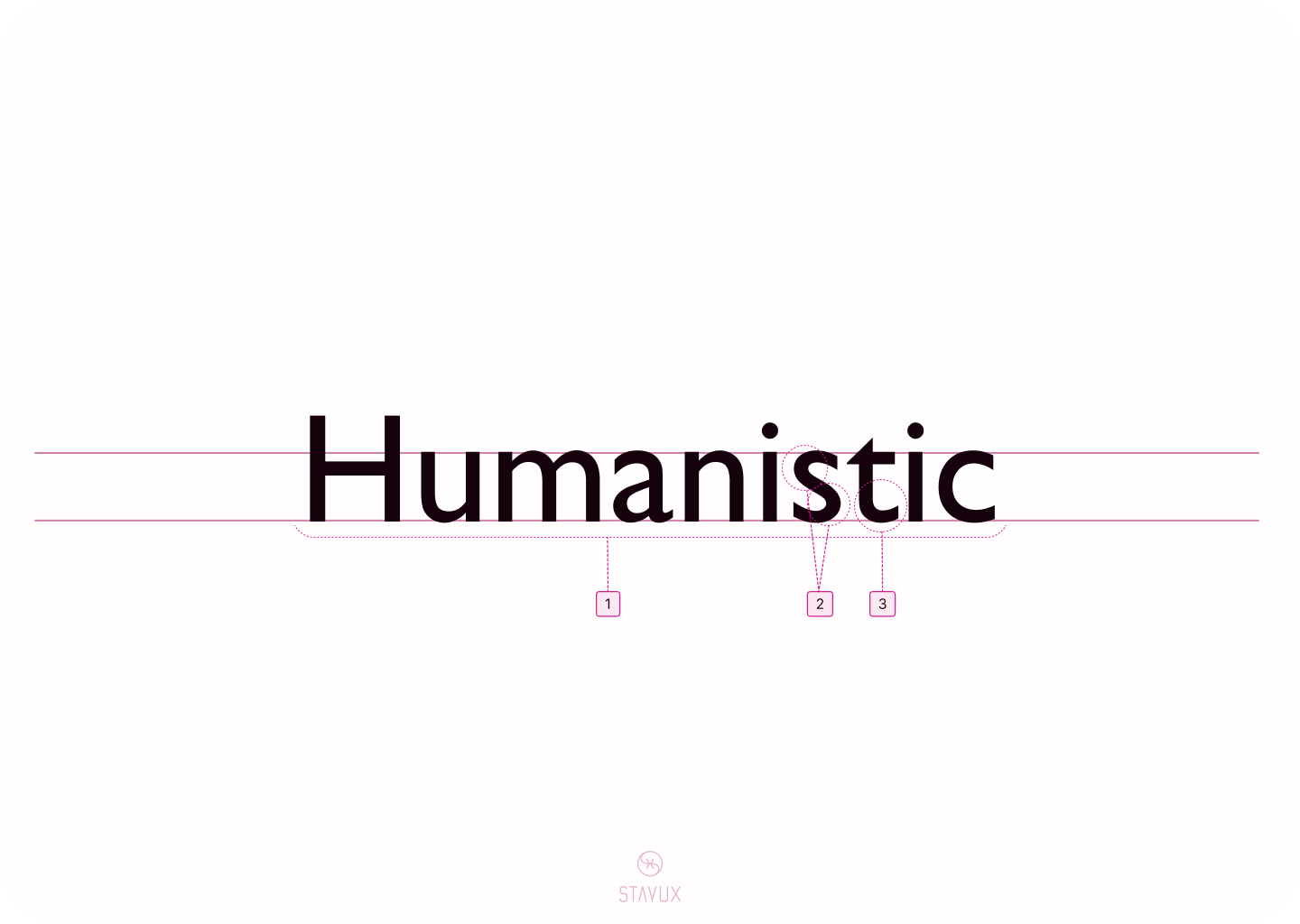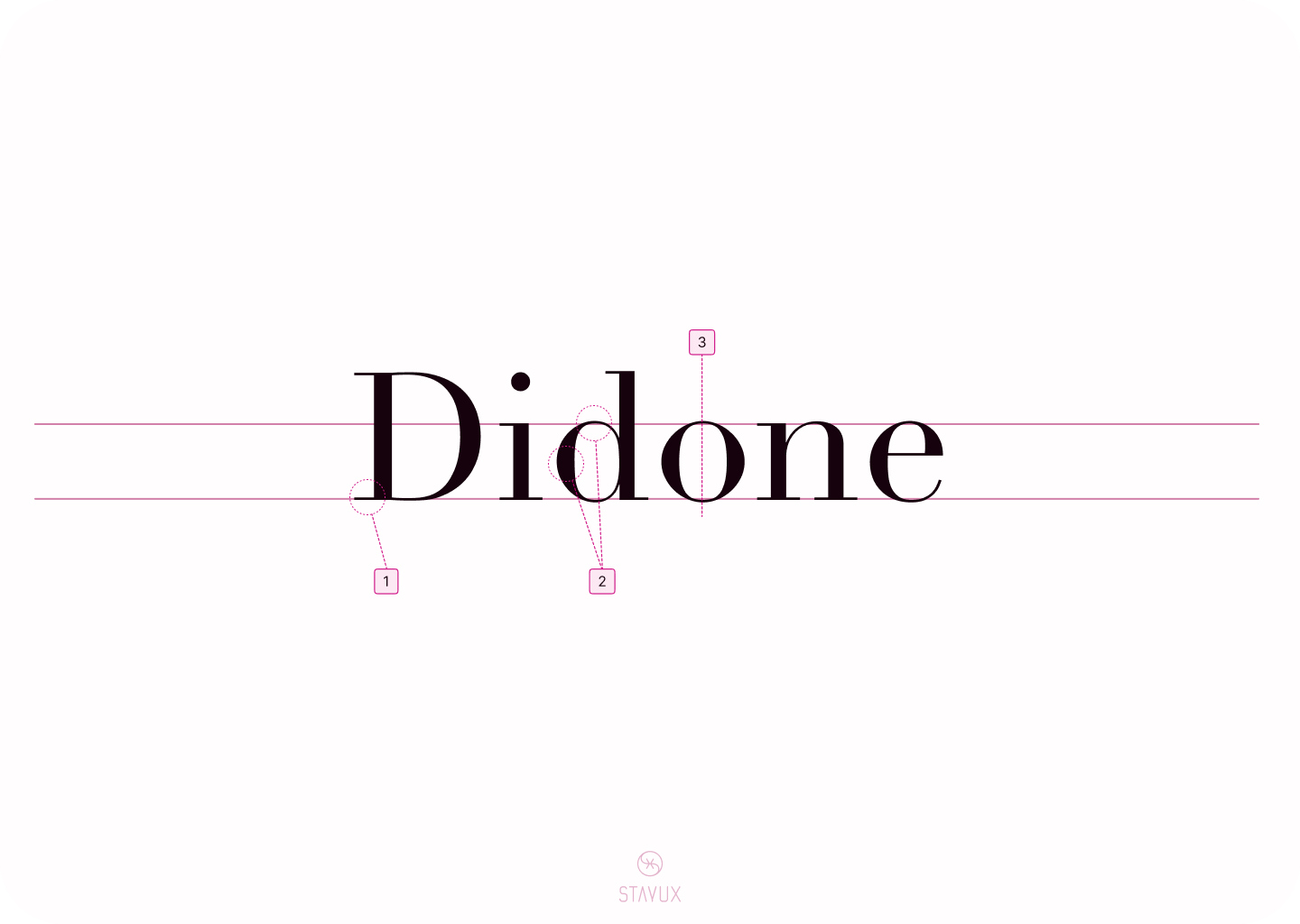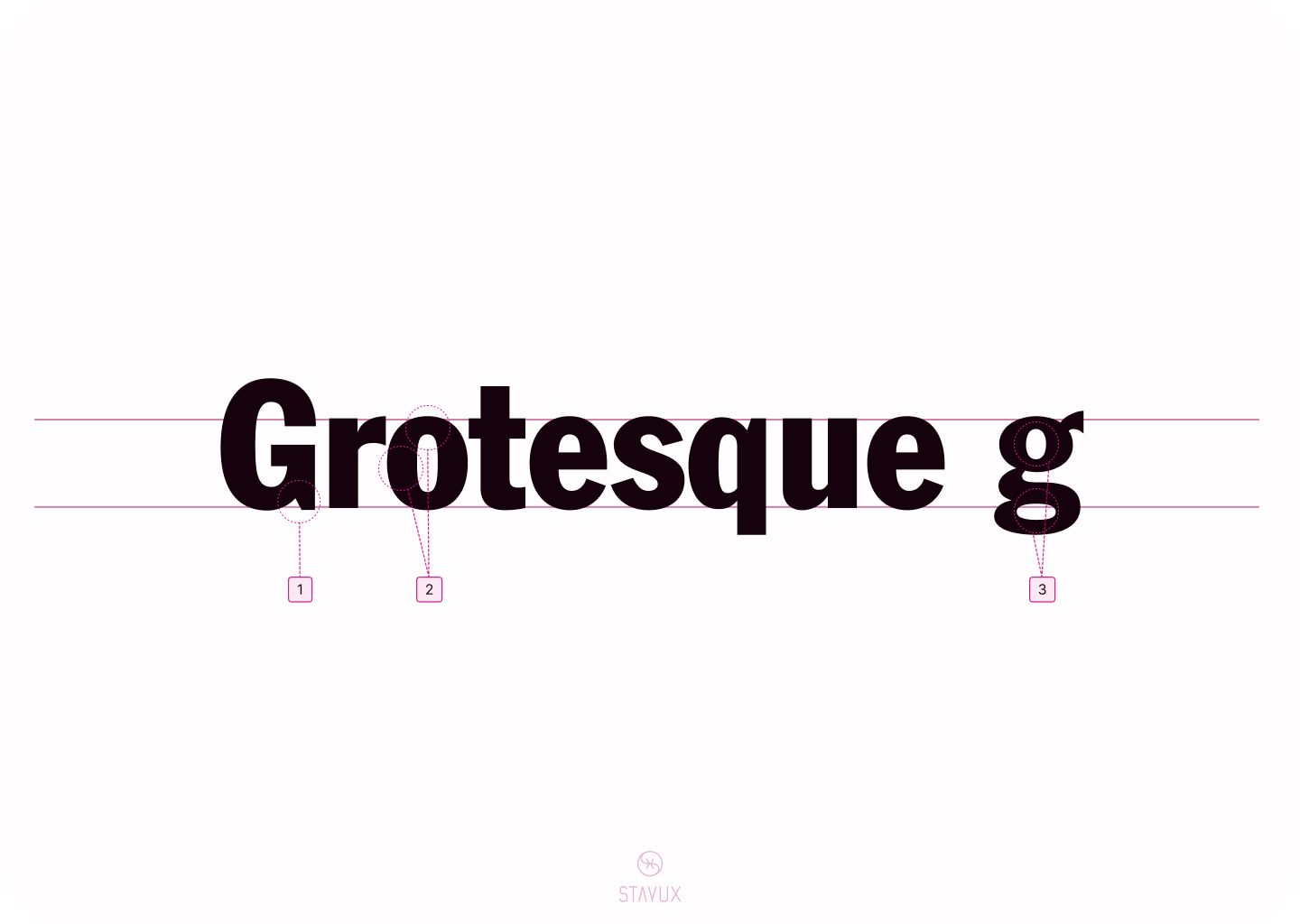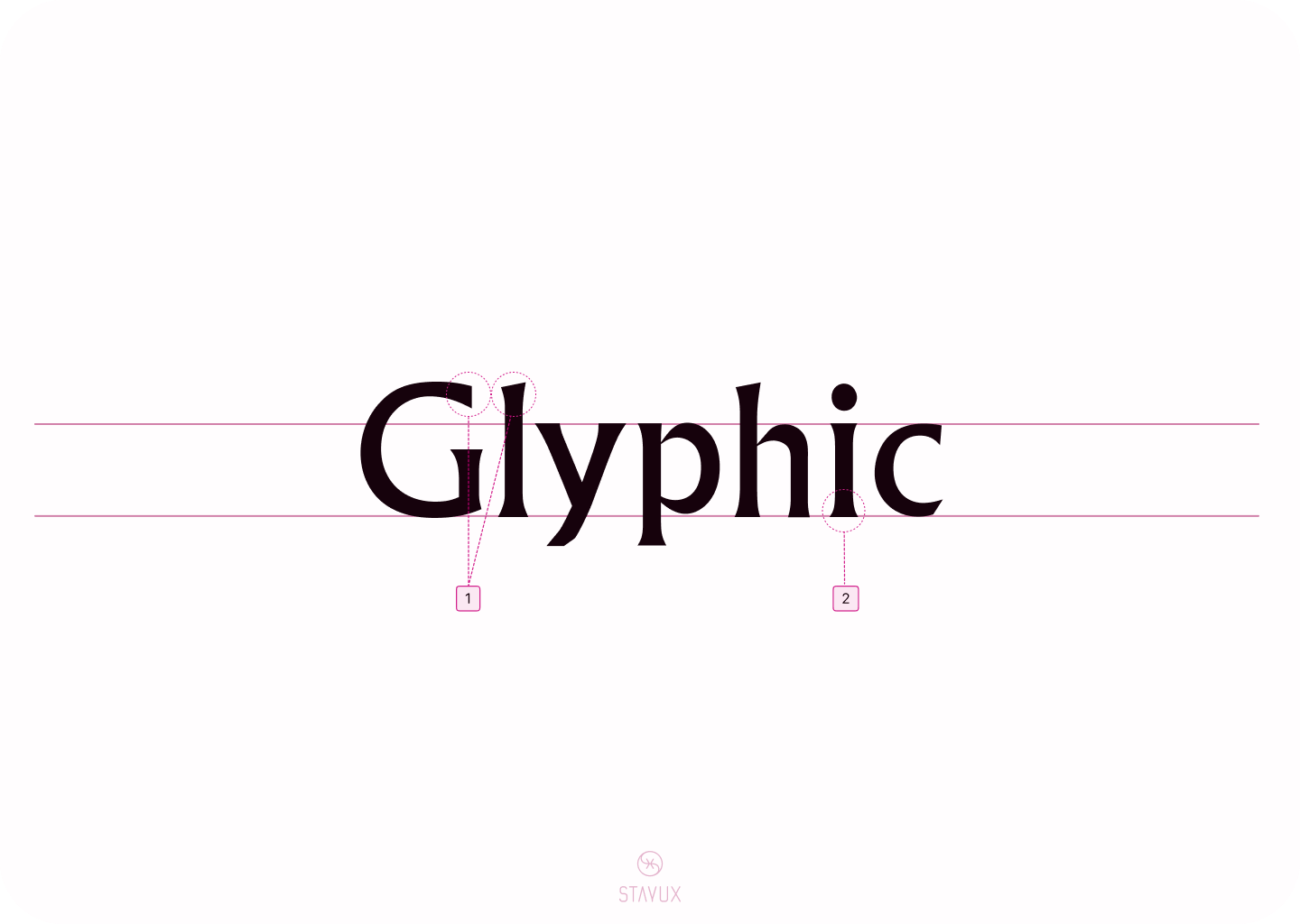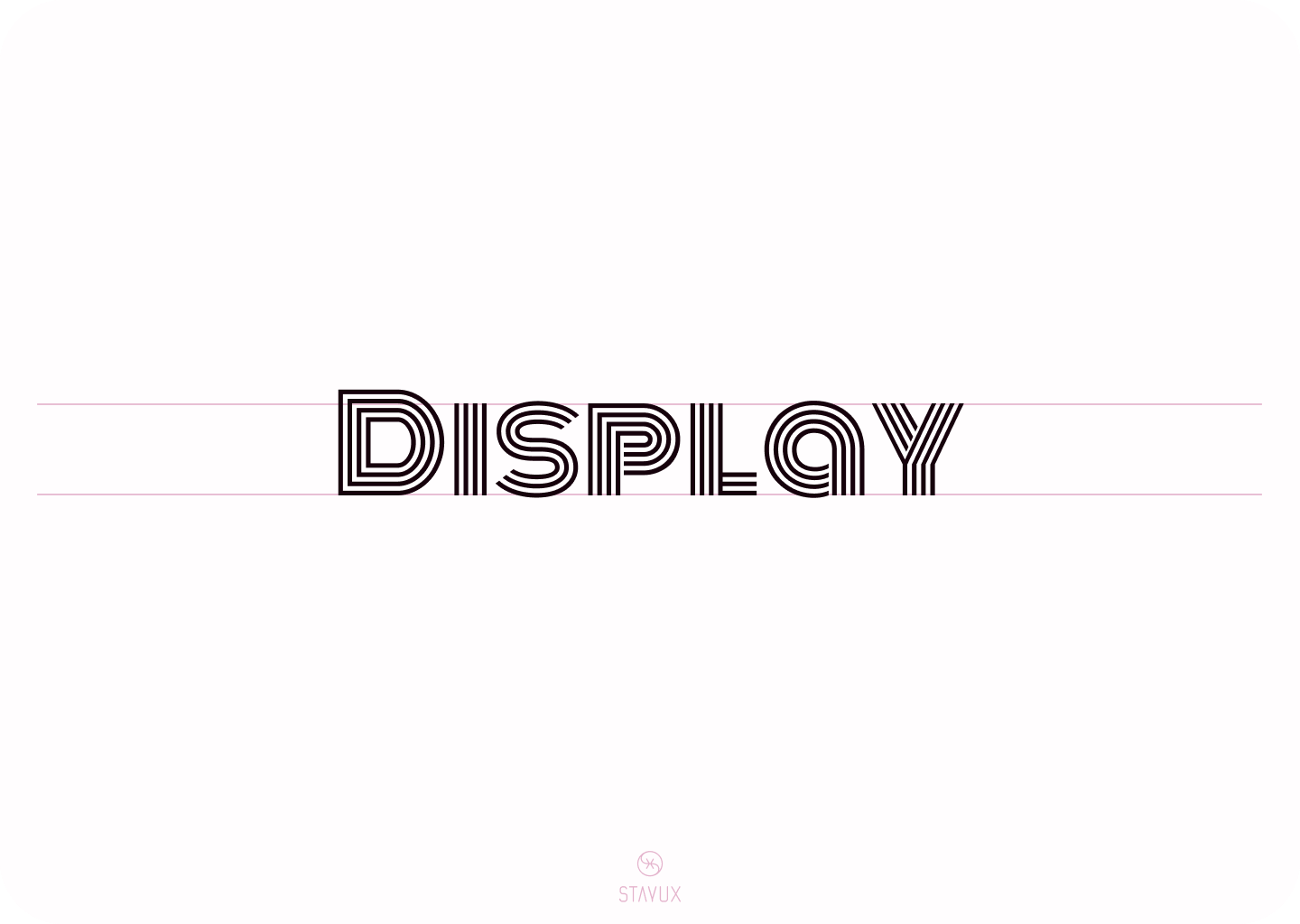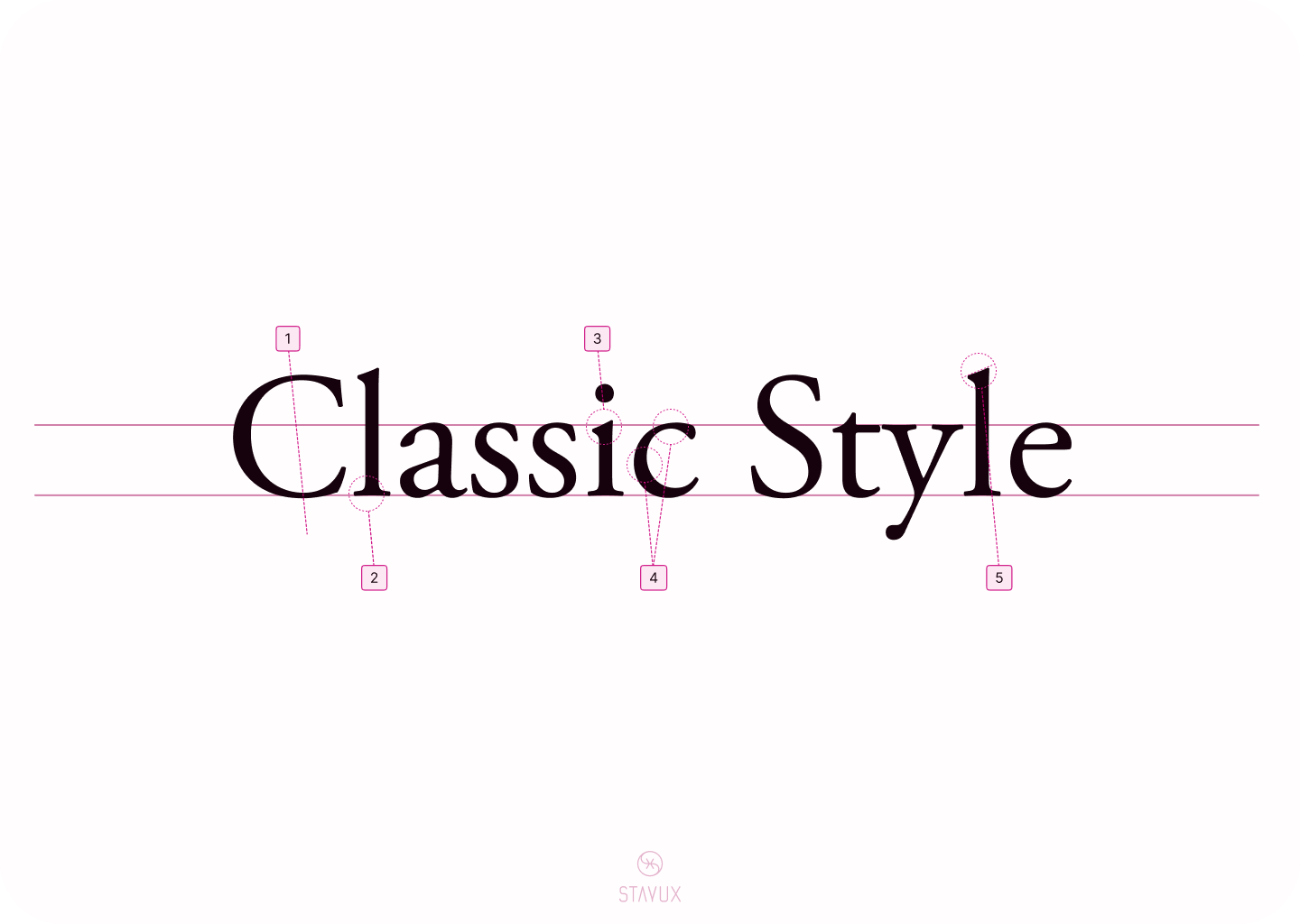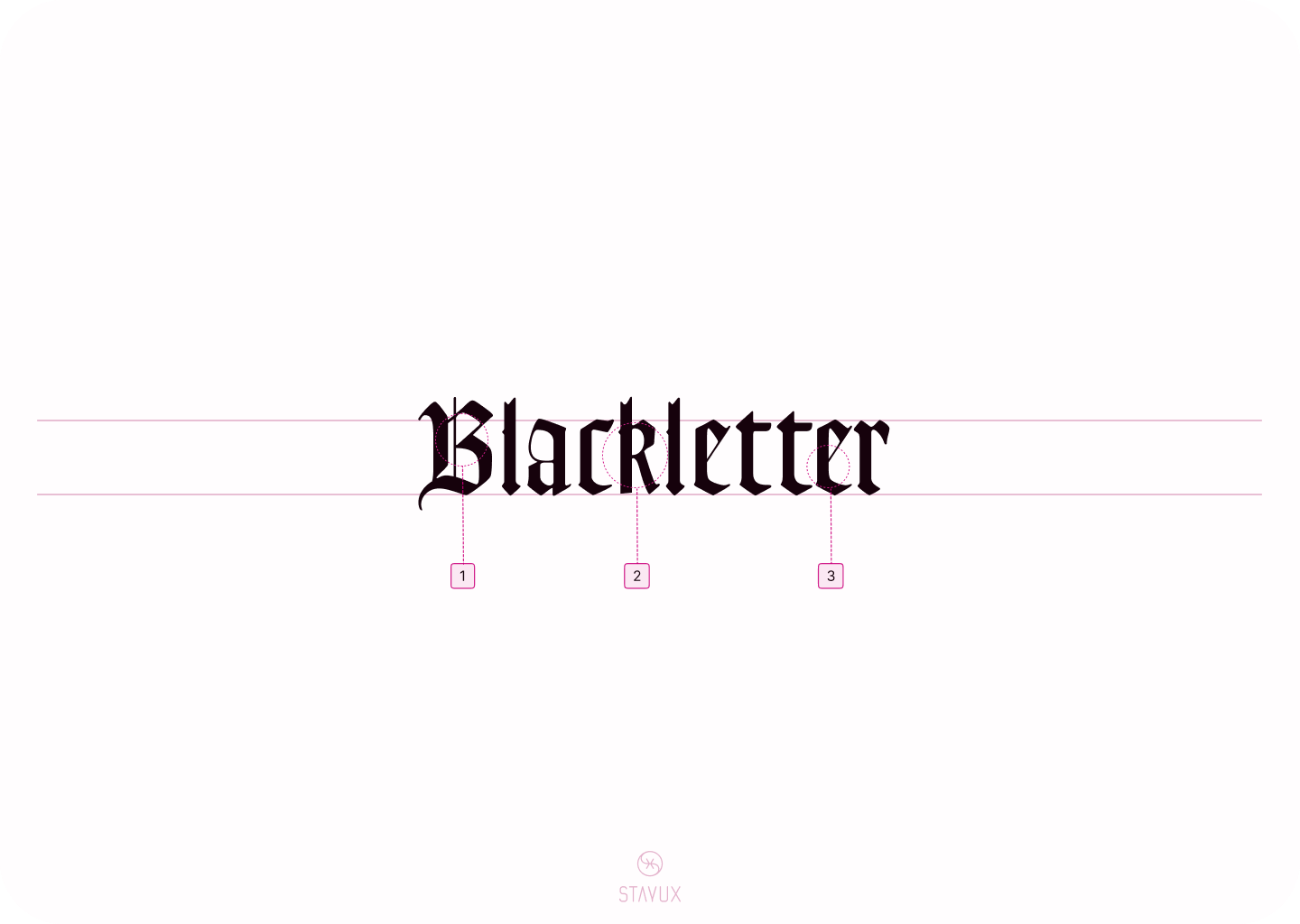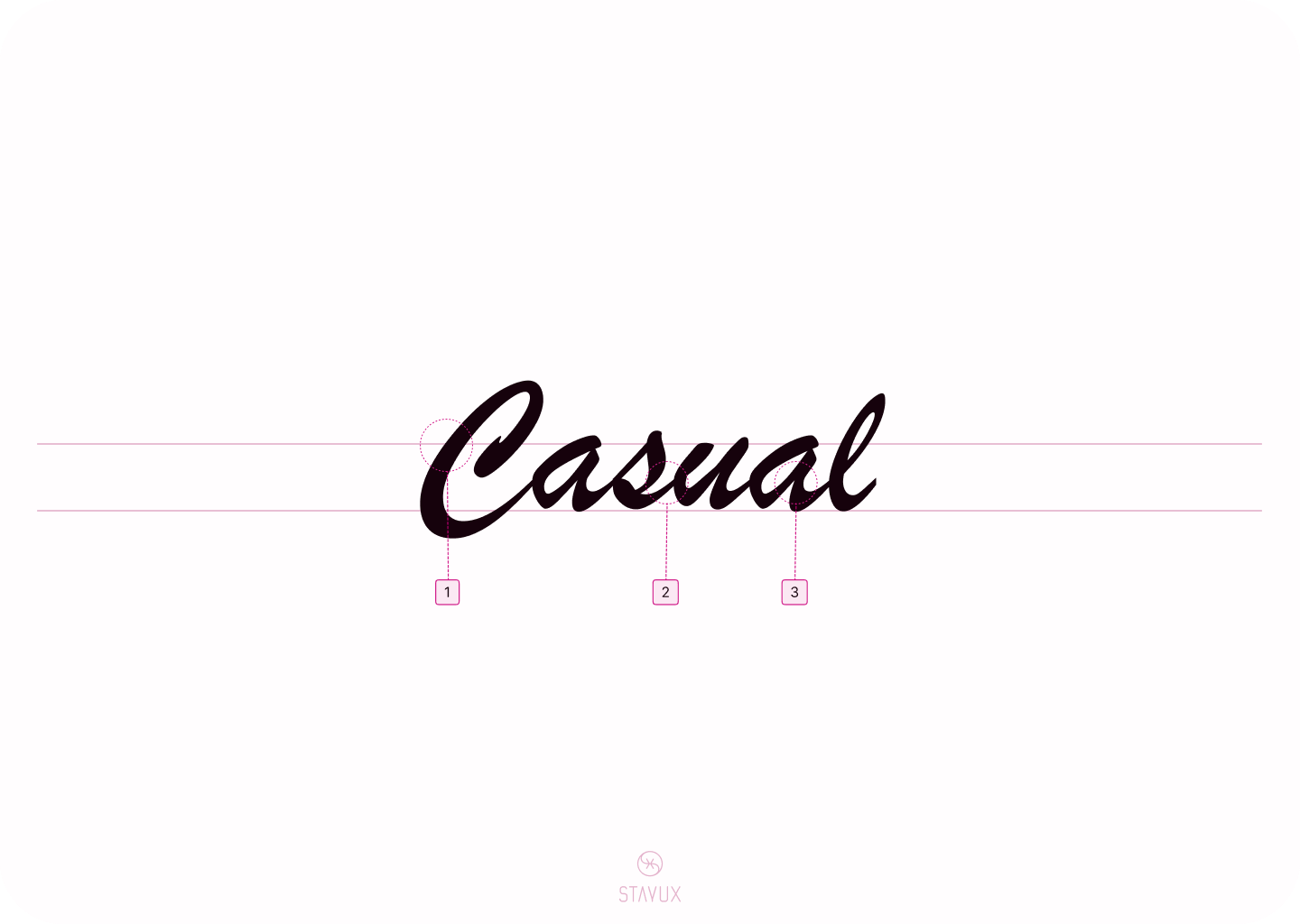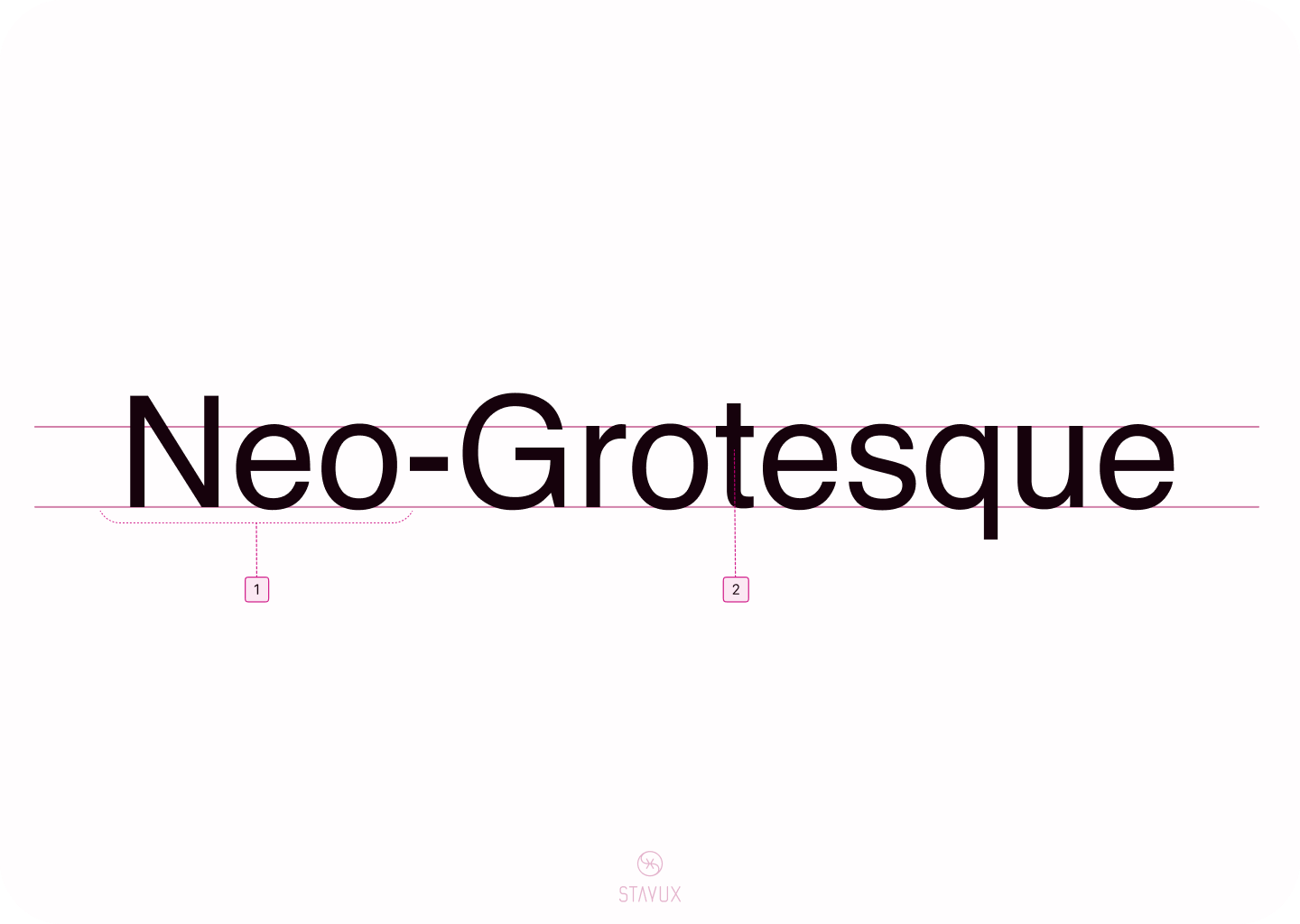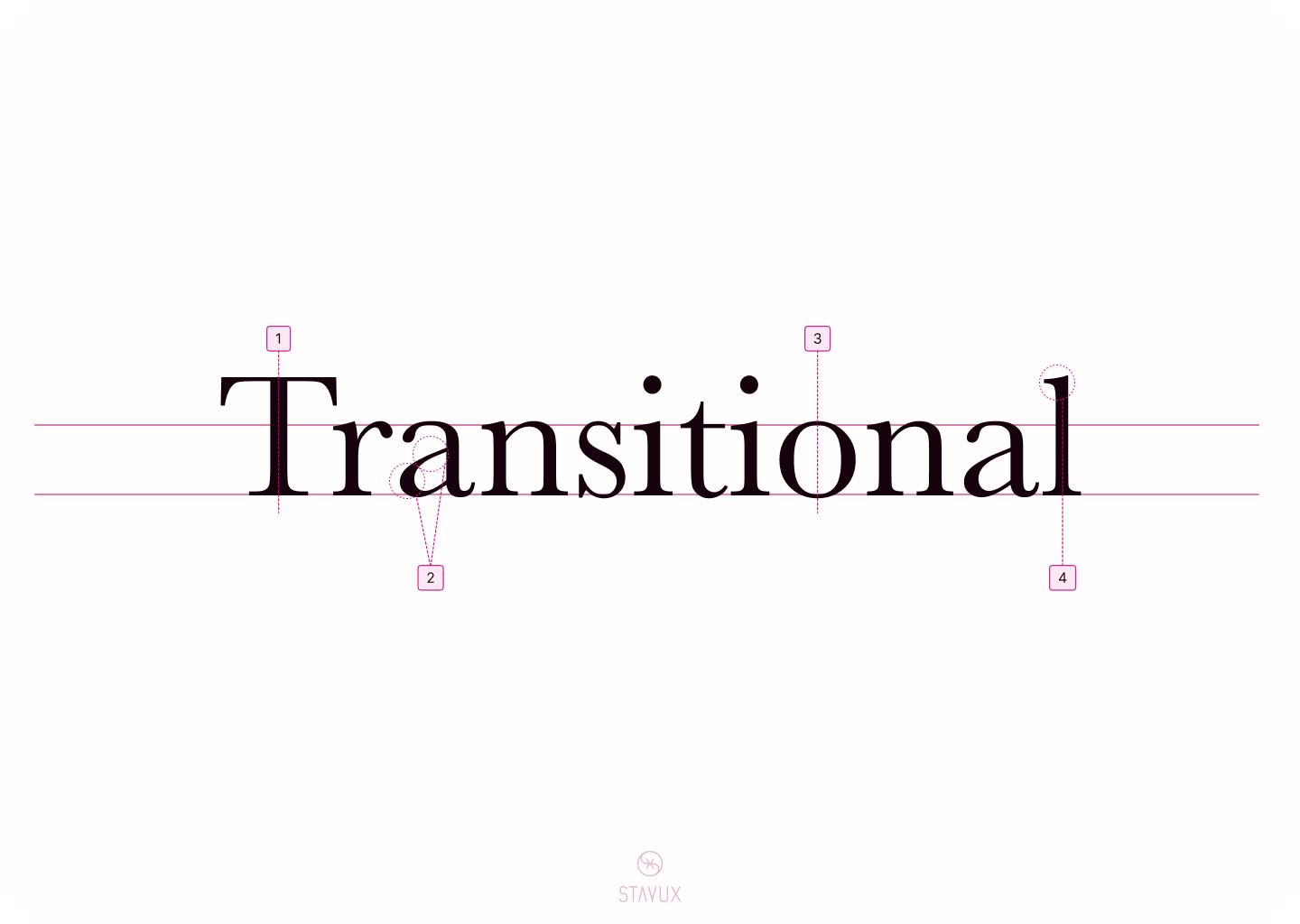
CLASSIFICATION OF TYPEFACES
Classification of Typefaces. Visual guide.
Serif.
Serif typefaces include projection in the end of the strokes of its letter-forms.
Classic (old) style:
- The thin parts are on the diagonal axis.
- In the stem and head curve, they have bracketed serifs.
- Wedge-shaped serifs.
- The contrast is minimal.
- Angled head serifs.
Examples: Garamond, Adobe Jensen.
Transitional serifs:
- Vertical strokes.
- Pronounced contrast.
- Vertical stress.
- Oblique and bracketed serifs.
Examples: Perpetua, Baskervile, Cambria.
Didone (Modern) style:
- Narrow and unbracketed (hairline) serifs.
- Dramatic contrast between strokes.
- Vertical orientation of weight axes. Vertical strokes are thick.
Examples: Didot, Bodoni.
Slab Serif (mechanistic, square, antique, Egyptian):
- Little or no bracketing. Heavy serifs.
- No contrast in stroke weights.
Examples: Rockwell, American Typewriter, Memphis, Museo Slab.
Glyphic Style:
- Emulation of lapidary inscriptions.
- Triangular serif shapes.
Examples: Albertus, Cartier Book, Newtext.
Sans-serif.
Sans-serif typefaces do not include any projections at the end of the strokes of its letter-forms.
Grotesque sans-serif:
- A spurred uppercase “G”.
- Minimal contrast on the strokes.
- A double-story lowercase “g”.
Examples: Franklin Gothic, News Gothic.
Neo-Grotesque sans-serif:
- Enhanced Legibility.
- Plain.
- Similar to other Grotesque sans-serifs.
Examples: Helvetica, Arial, Univers.
Geometric sans-serif:
- Based on simple geometric shapes.
- Have round "O".
- No contrast between strokes.
Examples: Futura, Avenir.
Humanistic sans-serif:
- Created to be more legible.
- More weight contrast than other sans-serifs.
- Calligraphic influence.
Examples: Verdana, Lucida Grande, Gill Sans.
Script typefaces.
Script typefaces are based on the fluid strokes of handwriting and range from formal to casual.
Formal script:
- Have flourishes and loops.
- Connected letterforms.
Examples: Bickam Script, Snell Roundhand, Kuenstler Script.
Casual script:
- Brush like appearance.
- Letterforms are connected, but not always.
- Powerful strokes.
Examples: Brush Script, Mahogany Script.
Calligraphic script:
- Hand-lettered calligraphy emulation.
- High contrast.
Examples: Vivaldi, Ballerino, Mistral.
Blackletter script:
- Formal appearance.
- Handwritten calligraphy foundation.
- Strong contrast.
Examples: Monmouth, Engravers Old English, Goudy Text.
Handwriting script:
- Mimic modern handwriting.
- Casual appearance.
Examples:Pacifico, Cedarville Cursive, Blog Script.
Monospaced typefaces.
Non-proportional typefaces. Every letter is using the same amount of horizontal space. There are serif and sans-serif typefaces.
Examples: Consolas, iA Writer Mono, Courier New, Victor Mono.
Display typefaces.
Big variety in appearance. Mainly suitable for titles and headlines.
Examples: Monoton, Broadway, Cooper Black, Curlz.